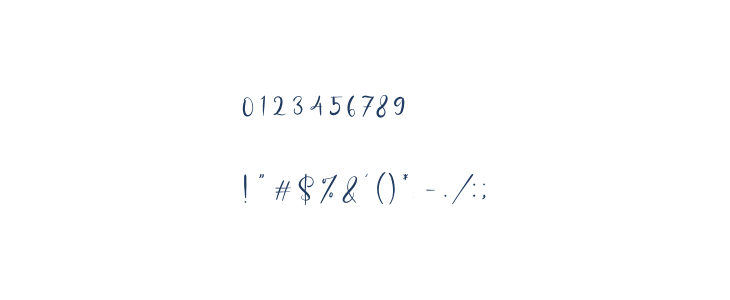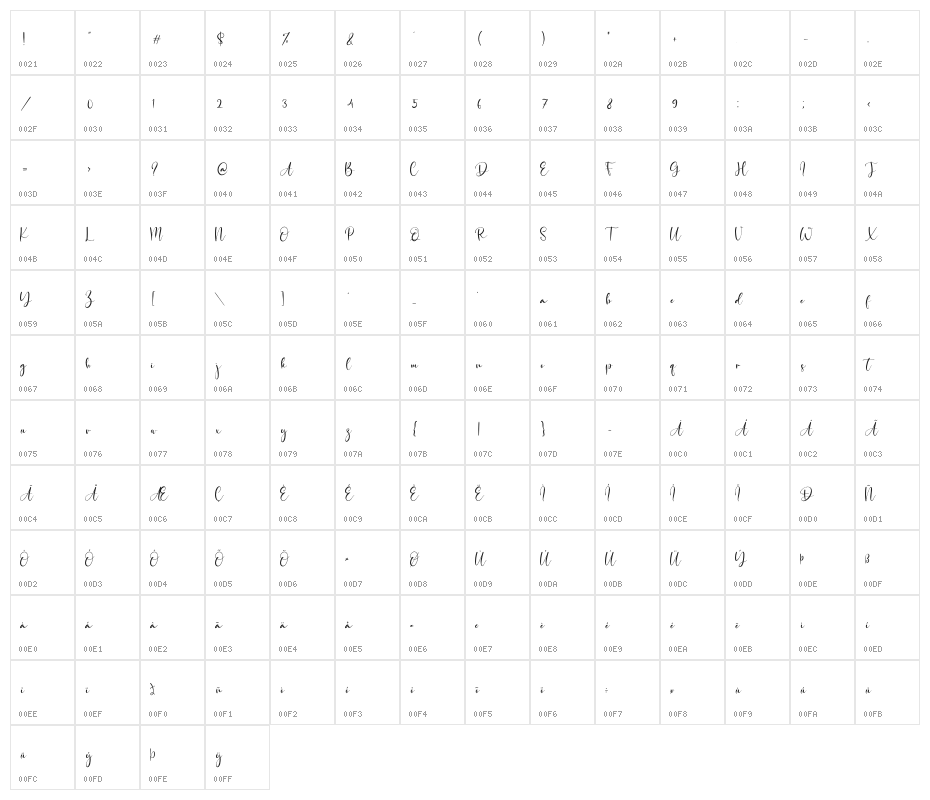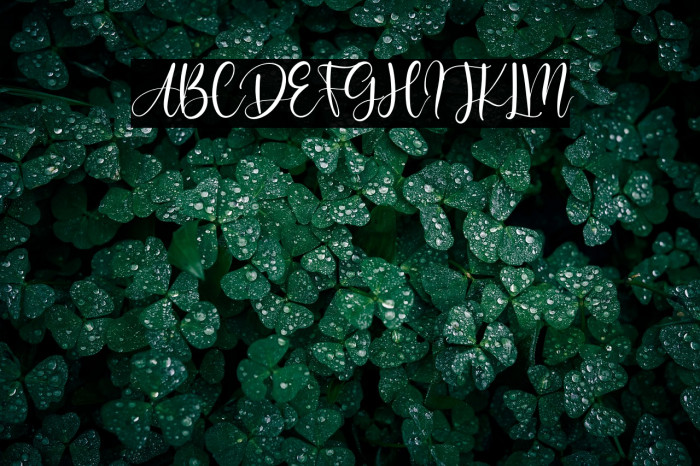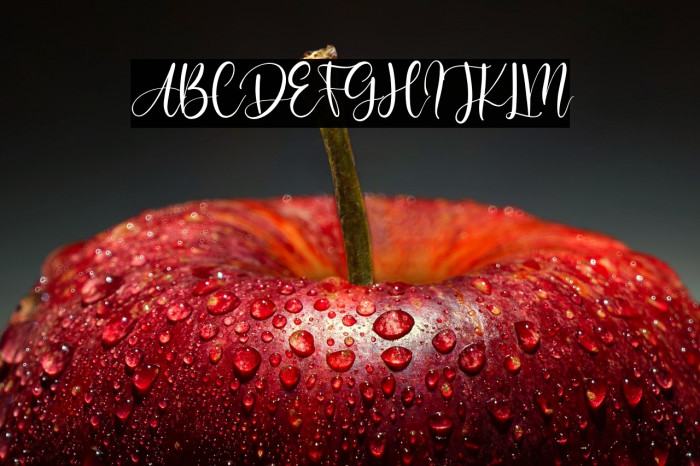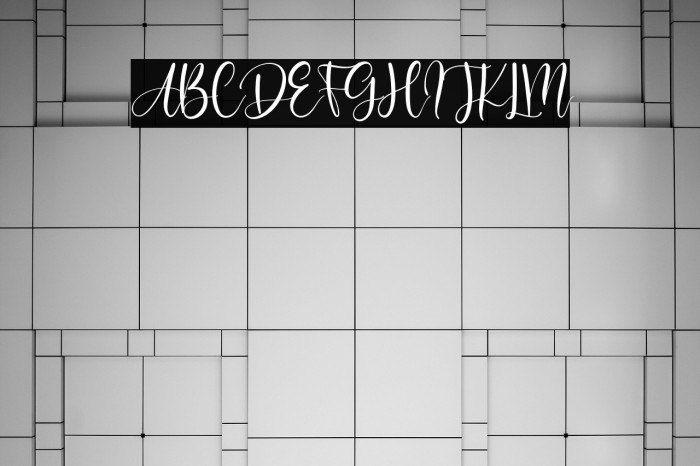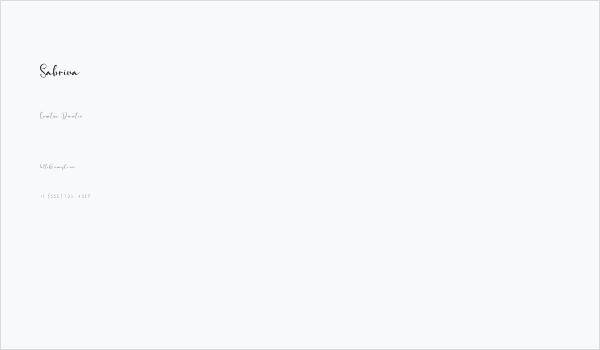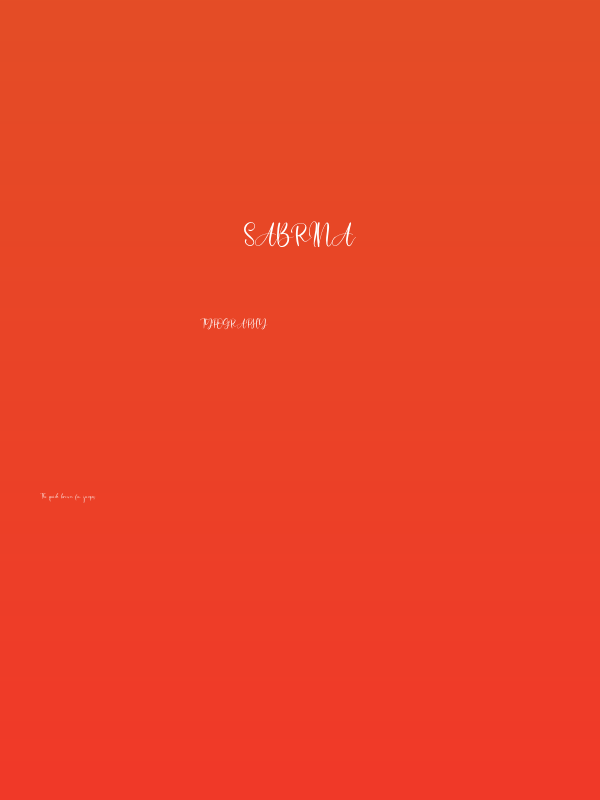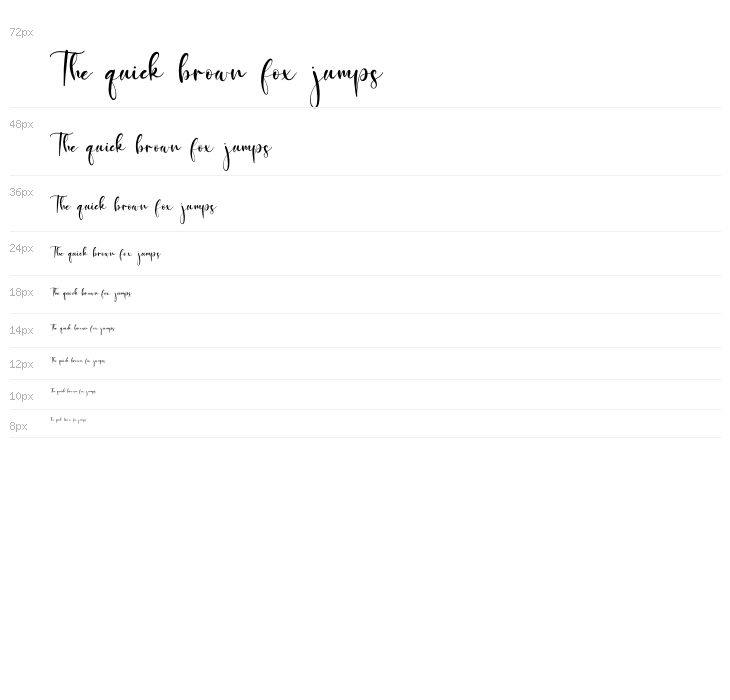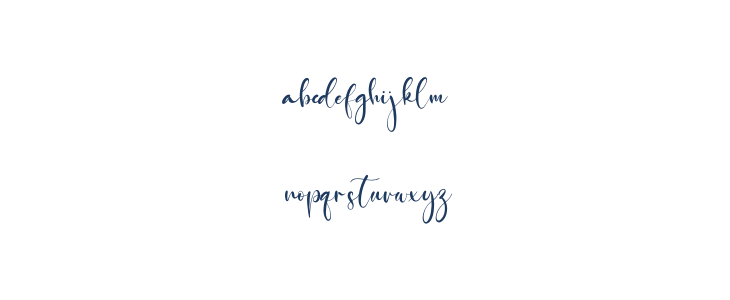
Sabrina Font
Sabrina Description
This elegant script font features a flowing, cursive style that exudes sophistication and charm. The letters are intricately designed with smooth curves and delicate loops, giving it a handwritten appearance. The uppercase letters are particularly ornate, with flourishes that add a touch of drama and flair. The lowercase letters maintain a consistent style, complementing the uppercase with their graceful and fluid forms. The numerals and special characters are crafted to match the overall aesthetic, ensuring a cohesive look across all text. This font is perfect for projects that require a personal and artistic touch.
| Overall Style | Elegant, Artistic |